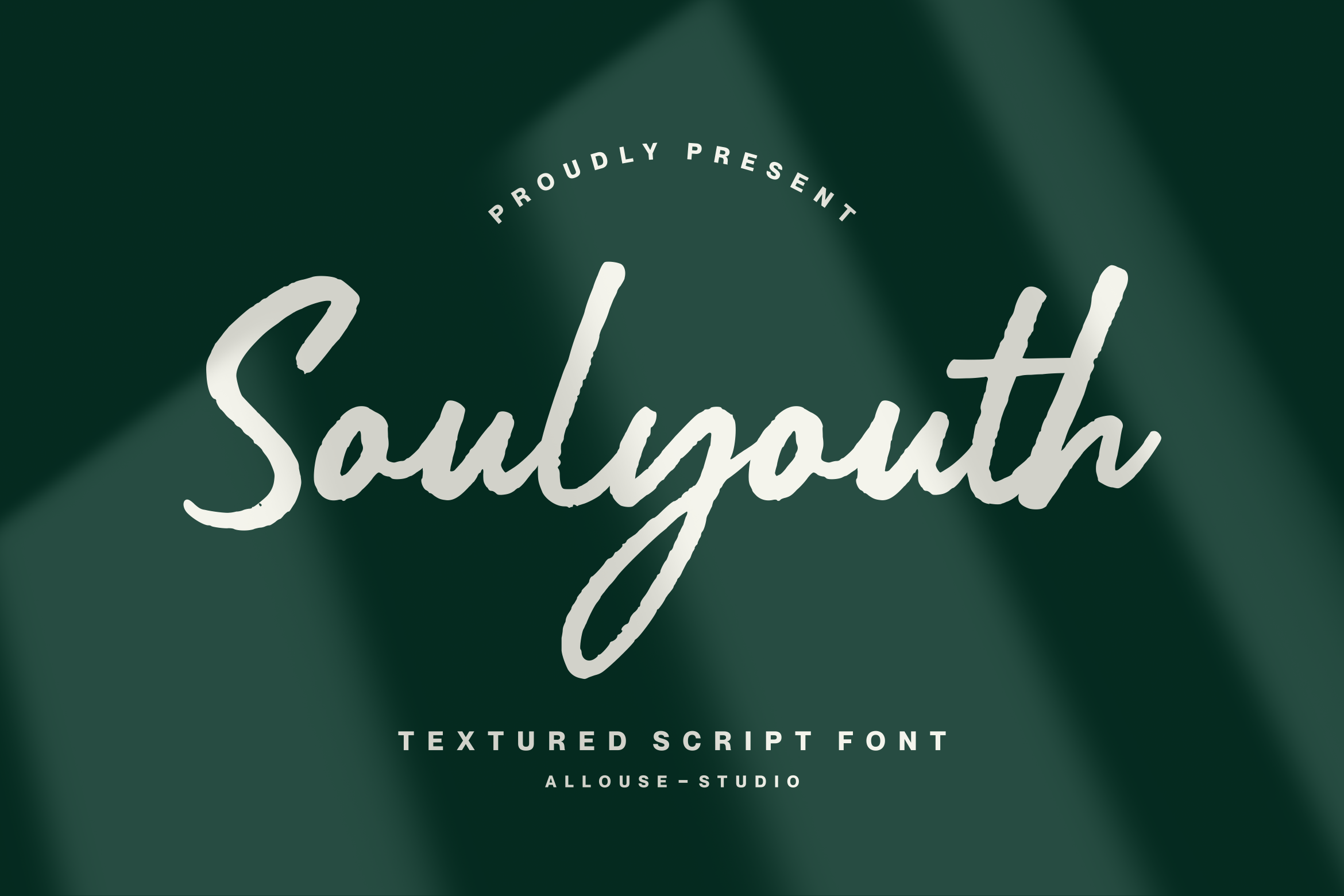
Proudly Presenting, Soulyouth A Textured Script Font
Soulyouth is suitable for any titles, logo, product packaging, branding project, megazine, social media, wedding, or just used to express words above the background.
Soulyouth also come with Multi-Lingual Support.